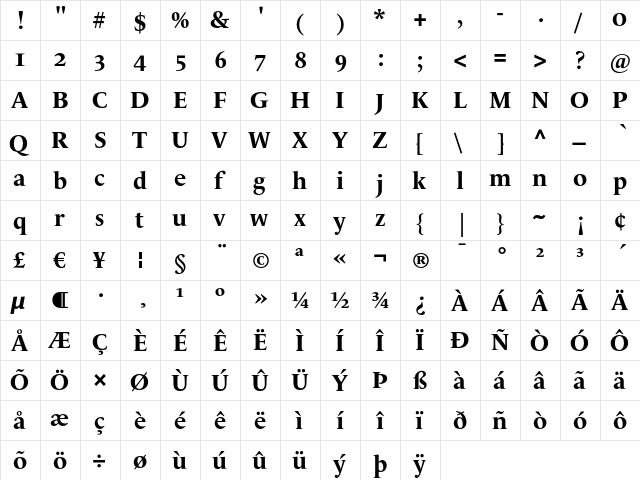
LeMondeLivre Bold Oldstyle Figures
Design Context for LeMondeLivre Typeface
LeMondeLivre brings classic typographic sensibility to the table — its serifs and measured letterforms reflect centuries of print heritage. Its bold stroke weight gives it real presence on the page.
Pro Tip: Set LeMondeLivre with slightly loose tracking in headlines to let each letterform's detail read clearly at display sizes.